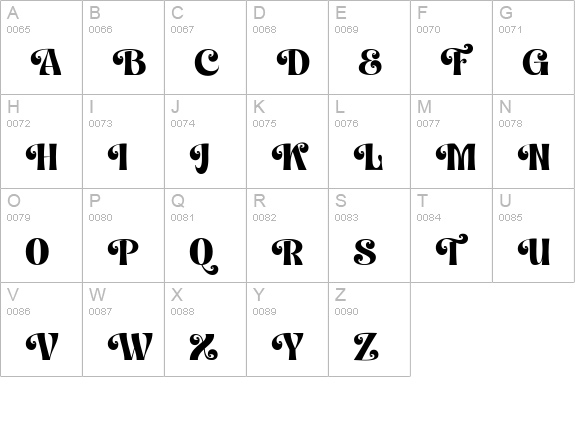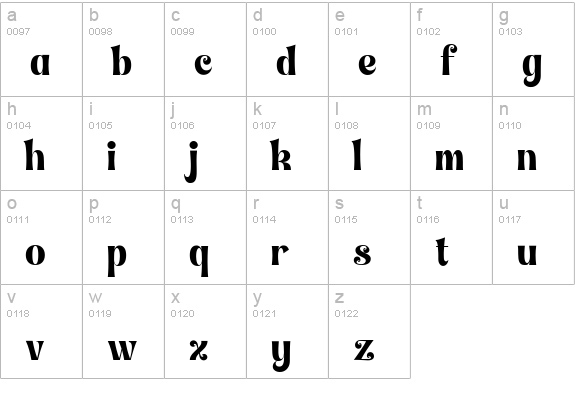
Angel Lemona font is a charming and whimsical typeface that exudes a sense of playfulness and elegance. With its delicate strokes and graceful curves, this font is perfect for adding a touch of sophistication to any project. Whether you're designing invitations, branding materials, or social media graphics, Angel Lemona font will surely make your text stand out.